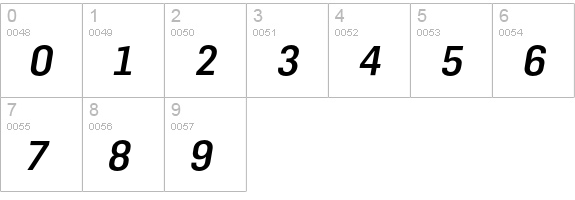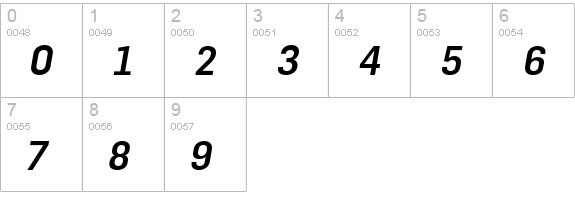
FlamaMedium Italic Font Details
FlamaMedium Italic is a distinctive, italic variant in the FlamaMedium typeface family \xE2\x80\x94 well suited to design and typography projects.
Introducing FlamaMedium Italic font, a stylish and versatile typeface that exudes elegance and sophistication. With its sleek curves and modern appeal, this font is perfect for adding a touch of class to any project. Whether you're designing a poster, logo, or website, FlamaMedium Italic will make your text stand out. The best part? FlamaMedium Italic is available for free download at FontsMarket.com. That's right, you can get your hands on this gorgeous font without spending a dime. Don't miss out on this amazing opportunity to enhance your designs with FlamaMedium Italic. Download it now and take your typography to the next level!